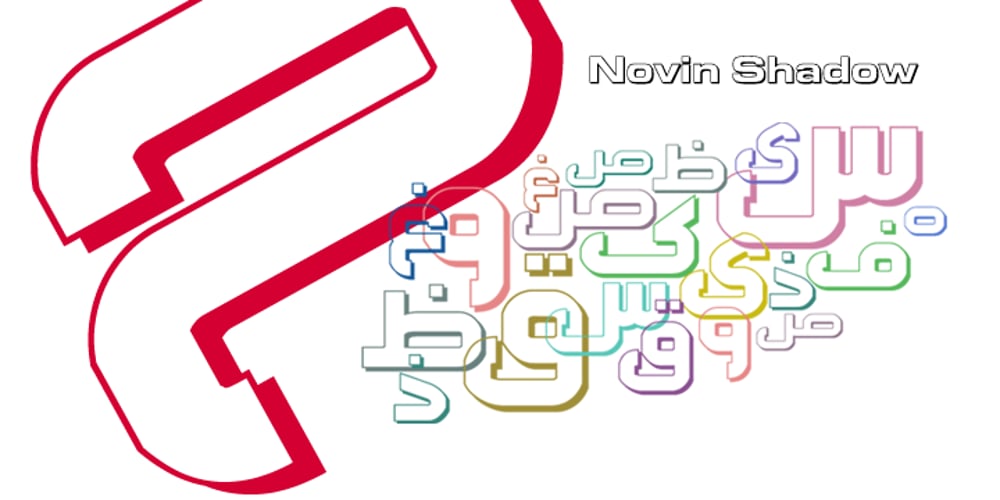
Novin Shadow Font Family was designed by Naghi Naghashian and published by Naghi Naghachian. Novin Shadow contains 1 styles and family package options. Novin-Shadow is an outline Font with Shadow. It is based on Novin font family but as a separate headline font with Arabic and Latin characters. It is a typeface that gives the typographer and other graphic artists the possibility to use modern headline. It enables, moreover, the use of this typeface for decorative headlines and is suitable for manipulations in both vector-based and pixel-based graphic programs. Typographies in countries worldwide, whose alphabets derive from the Roman and Arabic, are dependent on such innovations in order to meet the increasing demands of modern communication. This typeface implies at the same time an enrichment of the possibilities for typographical design, which in turn increases the delight in such design. It gives me great pleasure to present this new typeface to my creative colleagues worldwide.